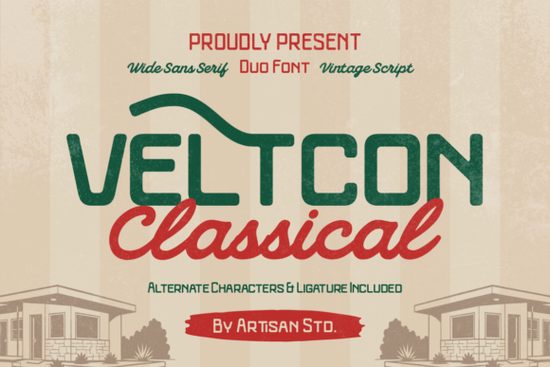
Veltcon is a classic vintage duo font that pairs a clean, wide sans serif with a smooth retro script. If you're working on a branding project, designing retro signage, or building a cohesive visual identity with an Americana feel, this font is worth a closer look. Inspired by old motel signage, vintage gas stations, and mid-century roadside culture, it brings a warm nostalgic quality without feeling dated or overdone.
What makes Veltcon different from other vintage fonts?
Plenty of fonts claim a "retro" look, but many end up feeling one-dimensional. What sets Veltcon apart is the pairing. The sans serif style is bold, structured, and highly readable, which makes it reliable for headlines and large-format text. The script side, on the other hand, has a natural, handwritten quality that feels authentic and elegant. Together, they give you two distinct voices that still belong to the same visual family.
This kind of font pairing saves time. Instead of searching for two separate typefaces that work well together, you get a ready-made combination designed with consistent proportions, weight, and personality.
Where does this font work best?
Veltcon fits a wide range of creative projects. Here are some of the most popular uses:
- Logo design The duo style lets you build a main wordmark and supporting tagline without extra font shopping
- Retro signage and posters The bold sans serif reads well at a distance, while the script adds character
- Classic packaging Think coffee labels, artisan goods, and small-batch products with a handmade feel
- Café, motel, and travel-themed designs The Americana roots make it a natural fit
- Editorial and magazine layouts Great for pull quotes and feature headlines
- Apparel and merchandise Works on t-shirts, tote bags, hats, and stickers
- Social media graphics Vintage-style posts stand out in a feed full of clean, modern layouts
For print-on-demand sellers, this versatility matters. One font family can cover product titles, descriptions, and graphic elements across an entire collection.
Does it come with alternate characters and ligatures?
Yes. Veltcon includes alternate characters and ligatures, which means you can swap out letterforms to create more natural-looking compositions. This is especially useful for script lettering, where repeated characters can look stiff or mechanical without variation. The ligatures help letters connect smoothly, giving your text a more polished, hand-lettered appearance.
Veltcon fills a specific niche: vintage Americana with a balanced duo structure. It doesn't try to be everything. It does one thing well, and that clarity is part of its appeal.
Is it easy to use for beginners?
The sans serif side is straightforward and beginner-friendly. The script side requires a bit more care, especially when working with ligatures and alternates. If you're using software like Adobe Illustrator, Affinity Designer, or even Canva, accessing alternate characters is usually just a few clicks away.
A few tips for working with duo fonts like this:
- Use the sans serif for primary text and the script for accents or supporting phrases
- Keep contrast in mind pair the bold sans serif against lighter design elements
- Don't overuse the script a little goes a long way in maintaining readability
Small businesses creating menus, price lists, or signage will find the sans serif especially practical. The script works beautifully for quoted text, signatures, or decorative headers.
Quick checklist before you buy
- Do you need a vintage font pairing for branding or signage?
- Will your project benefit from both a bold sans serif and a retro script?
- Do you want access to alternates and ligatures for more natural lettering?
- Are you designing for print-on-demand, packaging, or social media?
If you answered yes to most of these, Veltcon is a strong choice for your next project. It delivers a cohesive vintage look with enough flexibility to work across different formats and platforms without needing extra fonts to fill the gaps.